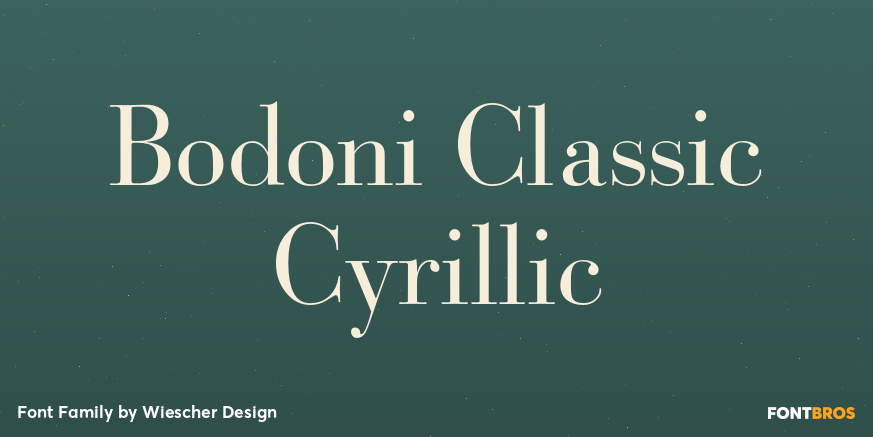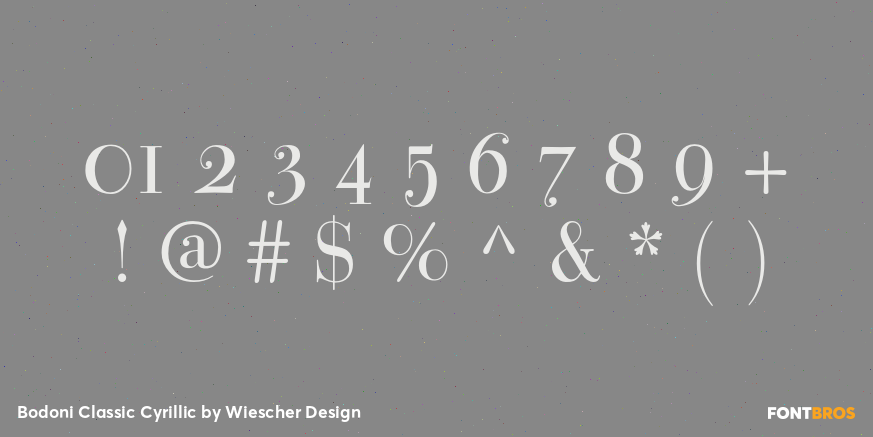
Bodoni Classic Cyrillic
Font Family by Wiescher Design
One day shortly after Christmas 2004, the art-director of Vogue Moscow called me. Would I maybe make a Cyrillic version of my Bodoni Classic Text typeface?
Well, since I had been thinking about doing it since a long time, this was the perfect reason to finally do it. It was not an easy venture, since I do not have the faintest idea of Russian but, together with those nice people in Russia and a fellow helpful type designer in Kiev, I managed. I did an enormous amount of kerning, thanks to the help of the Moscow Vogue office. Here the fonts are now for all of you: five text cuts, plus one standard roman cut that has no Cyrillic letters but an extra set of medieval numbers. At Vogue they are happy with the fonts, even though I did not quite adhere to Bodoni's originals in this case.